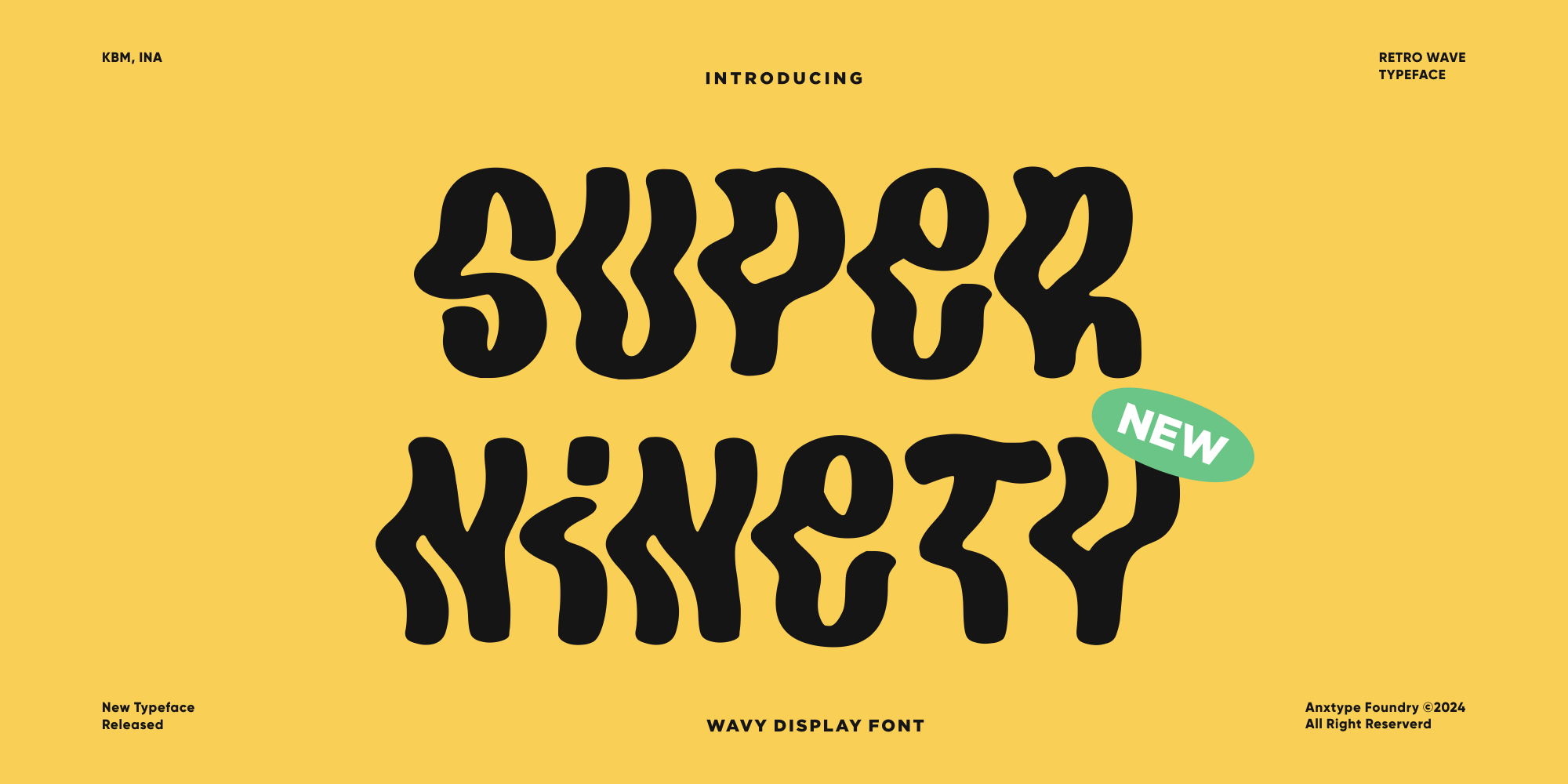
Super Ninety Font is perfect for 90s nostalgia campaigns, retro gaming graphics, vintage sportswear branding, throwback party promotions, classic hip-hop designs, old-school skateboard graphics, vintage tech marketing, nostalgic toy packaging, retro fashion revival, and decade-themed event materials.
What makes Super Ninety Font exciting is its authentic 1990s energy that perfectly captures the bold confidence and cultural revolution of the decade that defined modern pop culture, technology, and youth expression. This typeface features distinctive letterforms with characteristic 90s styling and period-appropriate details that instantly transport viewers to the era of grunge music, early internet culture, and revolutionary youth movements. The font's nostalgic personality and decade-specific authenticity make it ideal for brands seeking to connect with millennial nostalgia and the cultural significance of 90s innovation and rebellion.
Super Ninety Font family includes various stylistic alternatives and retro elements that enhance its 90s character while providing design flexibility for nostalgic and contemporary applications. The font features period-specific ligatures, decade-themed ornaments, and authentic character variations that create genuine 1990s atmosphere for retro and nostalgia branding.
Entertainment brands and nostalgic lifestyle companies consistently select Super Ninety Font Free Download for projects requiring authentic 90s appeal and generational connection. The font's decade-defining character excels in applications targeting millennials and Gen-X consumers who lived through the transformative 1990s cultural revolution. Whether you're designing for retro gaming, vintage fashion revival, or nostalgic entertainment venues, this iconic typeface delivers the 90s authenticity and cultural nostalgia that creates powerful emotional connections with audiences seeking genuine connection to the decade that shaped modern digital culture and youth expression.